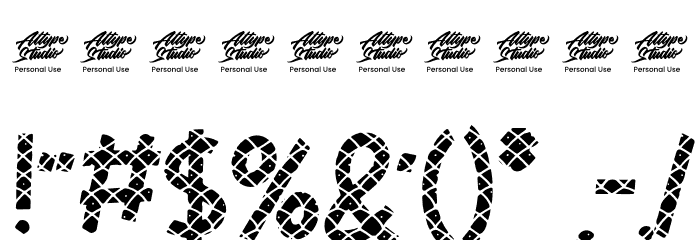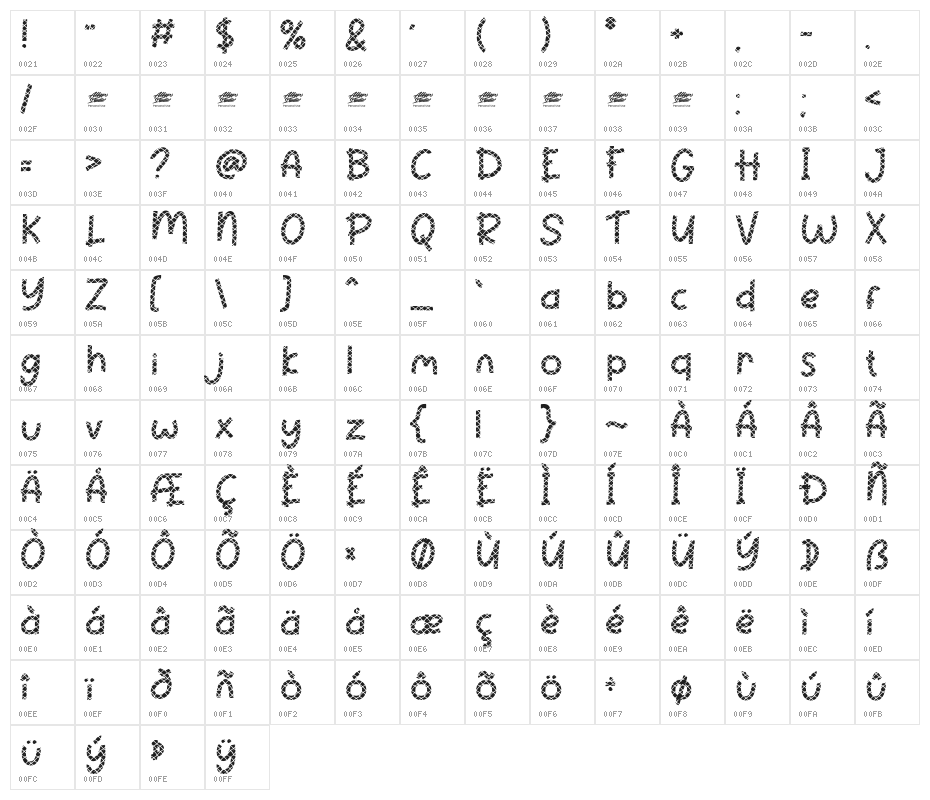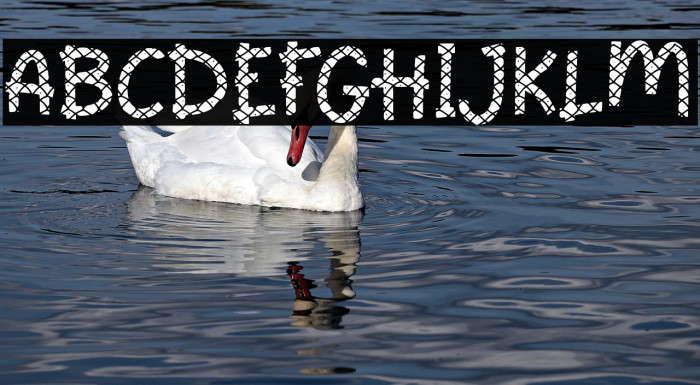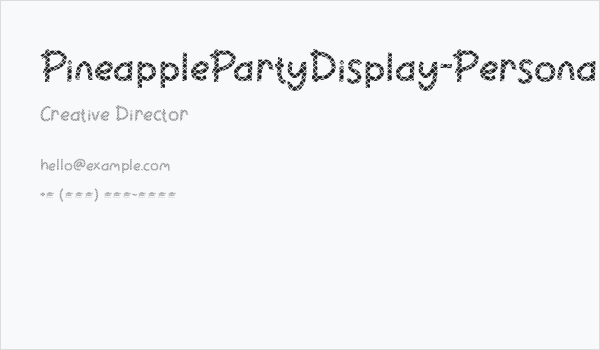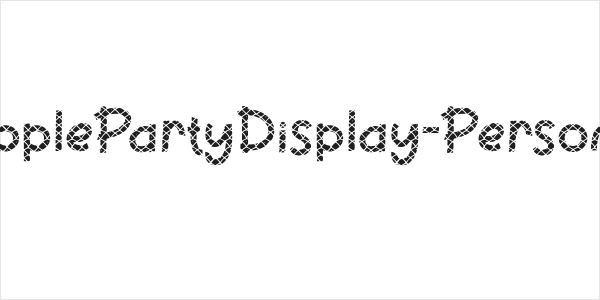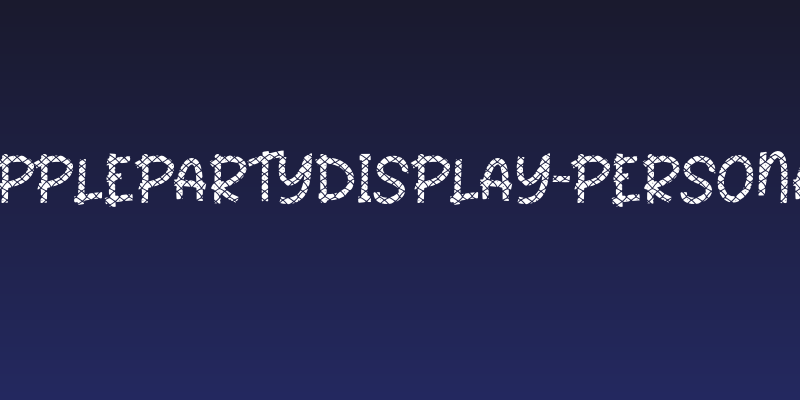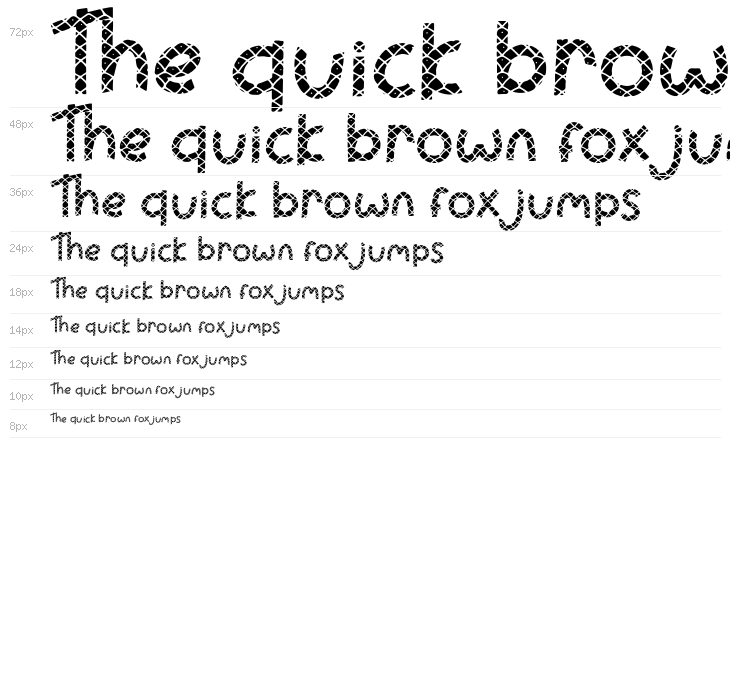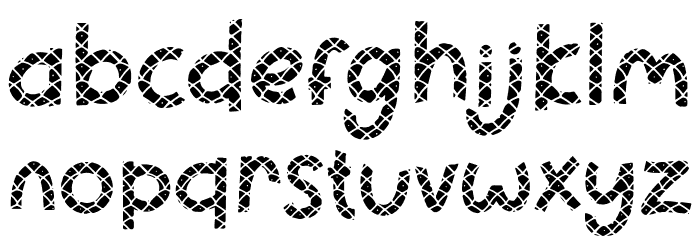
PineapplePartyDisplay-Personaluse Font
PineapplePartyDisplay-Personaluse Description
This font features a playful and decorative style, characterized by a unique pattern within each character that resembles a pineapple texture. The letters are bold and rounded, giving them a friendly and approachable appearance. The uppercase and lowercase letters maintain a consistent design, with a slight variation in size and form. The numbers and special characters follow the same decorative pattern, ensuring a cohesive look across all elements. This font's distinct style makes it ideal for projects that require a fun and eye-catching aesthetic.
| Proposed Projects | Ideal for party invitations, children's book covers, playful branding, and tropical-themed designs. |